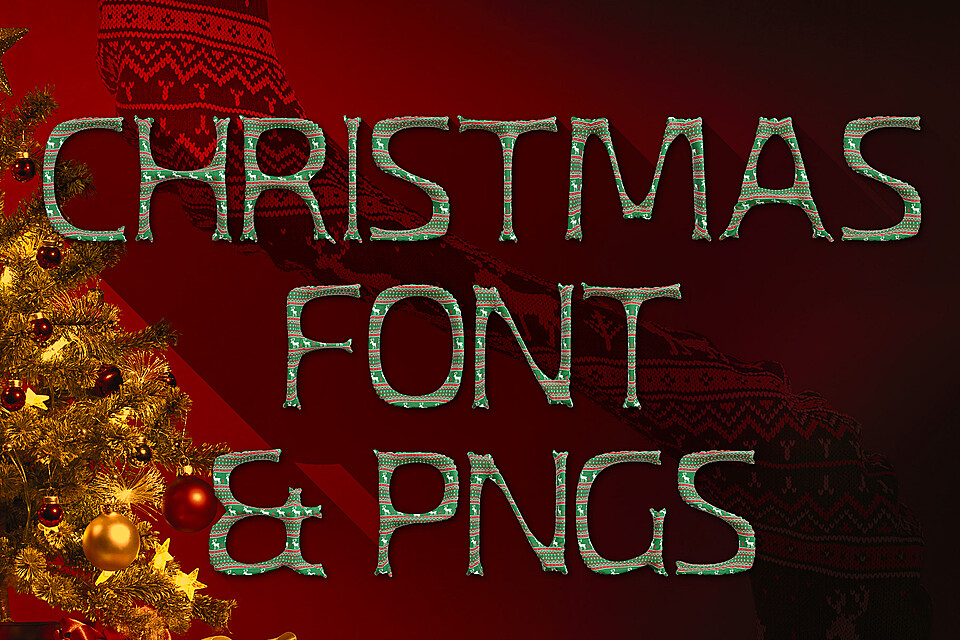
Christmas Socks Font & PNGs
** MS Christmas Socks Opentype SVG Color Bitmap Font & PNGs **
Each letter is modelled and rendered in a 3D Application, also converted into an Opentype SVG (Color Font) - Basic western uppercase letters - Basic Punctuation and Symbols - Numbers - Clean Transparent PNGs (Up to 3840x3840px) - The package contains 53 Separate PNGs and 1 OTF (OpenType SVG - Color Font) file.